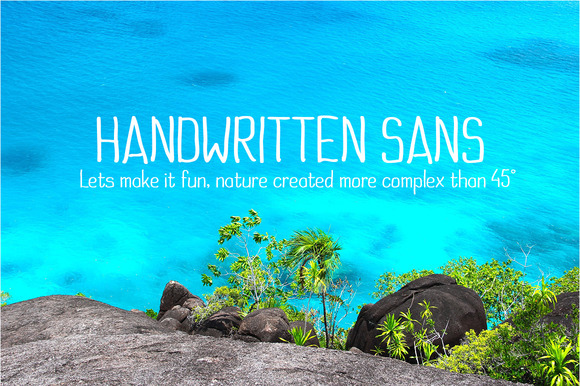
Unleash Your Inner Superhero with Handwritten Sans!
Dive into the realm of enchantment and adventure with Handwritten Sans, the playful and energetic sans serif font that will ignite your creative spirit. Embark on a journey filled with captivating handwritten characters, each stroke infused with personality and charm.
Handwritten Sans is meticulously crafted to capture the essence of comic book artistry, inviting you to tell tales of daring heroes, mischievous villains, and worlds of wonder. With its 270 glyphs, Handwritten Sans offers a diverse range of expressions, allowing you to paint vivid scenes and unforgettable characters.
Let Handwritten Sans be your artistic sidekick, guiding you through the pages of your imagination. Its slightly roughed-up edges add a touch of grit and authenticity, making it the perfect choice for conveying action-packed sequences, humorous dialogue, and heartfelt moments.
Whether you're creating digital comics, designing eye-catching posters, or crafting unique branding materials, Handwritten Sans will elevate your work to new heights. Its versatility extends beyond the realm of comics, making it an ideal choice for a variety of projects, from whimsical invitations to captivating social media posts.
Join the legion of creatives who have embraced Handwritten Sans and witnessed the magic it brings to their designs. Unleash your inner superhero and let your creativity soar with this extraordinary font. Experience the thrill of storytelling and bring your visions to life with Handwritten Sans today!